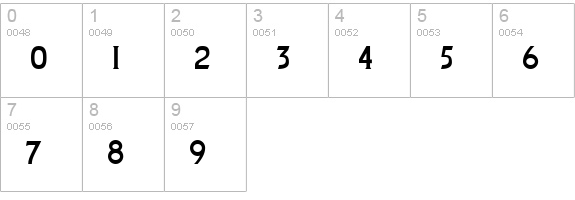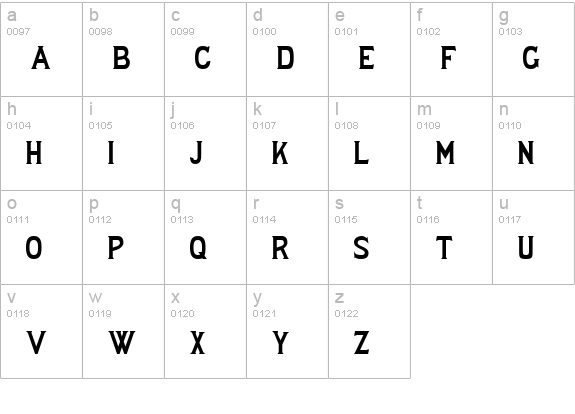
Lewisham font exudes elegance and sophistication with its timeless charm and versatile appeal. This font features a perfect balance of classic and modern elements, making it suitable for a wide range of design projects. With its clean lines and stylish curves, Lewisham font adds a touch of refinement to any design. What sets Lewisham font apart is not only its aesthetic beauty but also its availability for free download. Yes, you read that right - Lewisham font is freely available to download at FontsMarket.com. Now you can elevate your designs with this exquisite font without any cost. Don't miss the opportunity to add Lewisham font to your collection and bring a touch of sophistication to your projects.